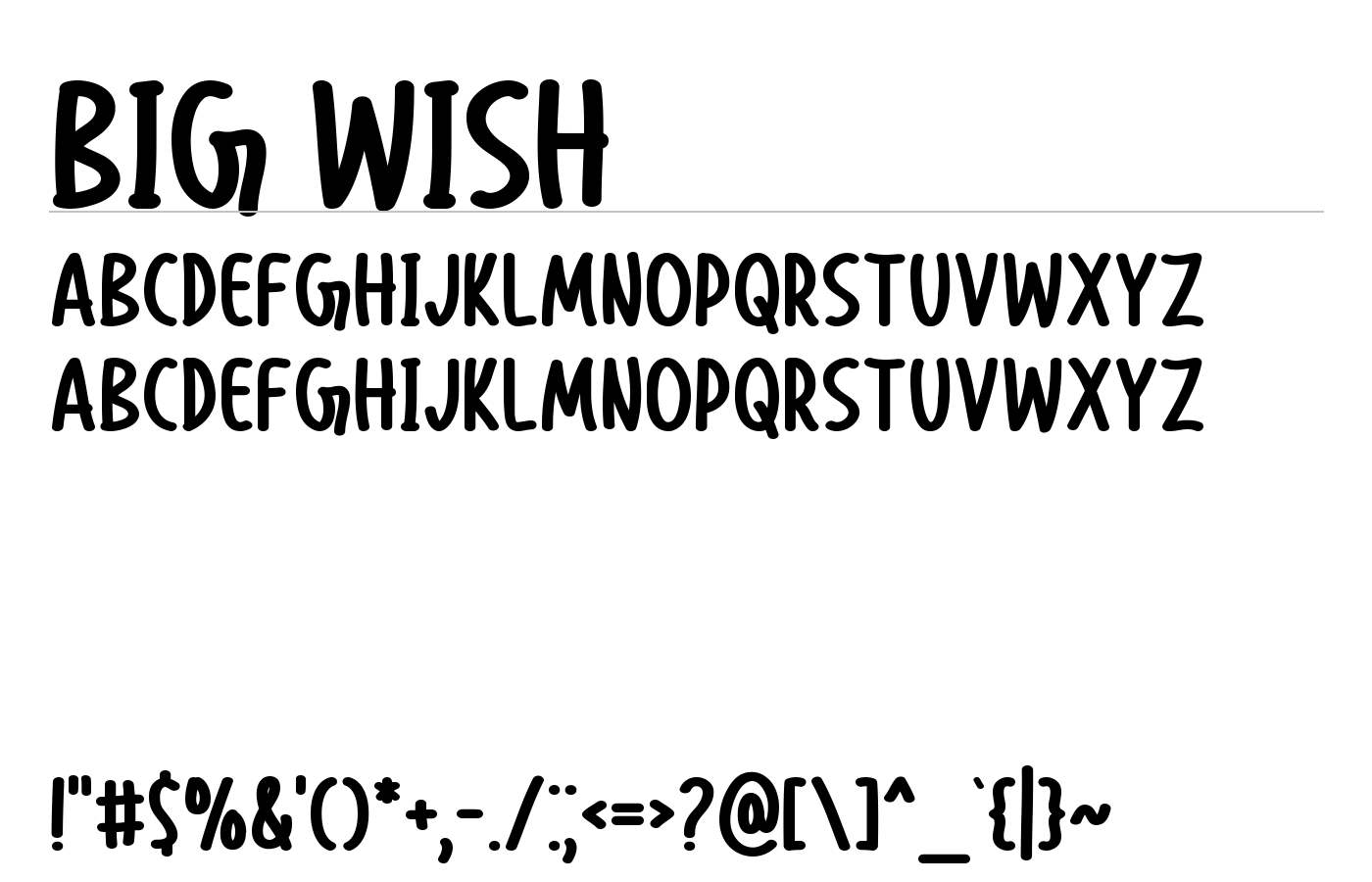
Big Wish is a playful and casual sans serif font with a friendly, hand-drawn feel. Its rounded, slightly irregular letterforms and medium weight create an approachable look that’s perfect for fun, informal designs like children’s books, greeting cards, or whimsical branding. This font works especially well for headlines and creative projects that want to evoke warmth and cheerfulness.
Big Wish Font
About Big Wish Font